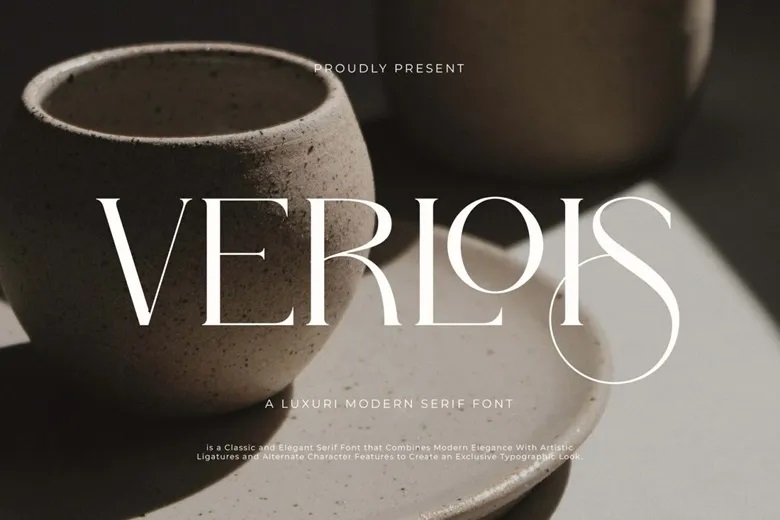
Verloise Font
Verloise is a serif font with a modern, minimalist style. It adds a touch of luxury and elegance to projects like websites, logos, brand identities, social media posts, wedding stationery, magazines, and more.
Verloise offers distinctive, elegant capital letters from A to Z, along with special alternates and ligatures. These features let you customize the font for many different projects.
Verloise Serif Font